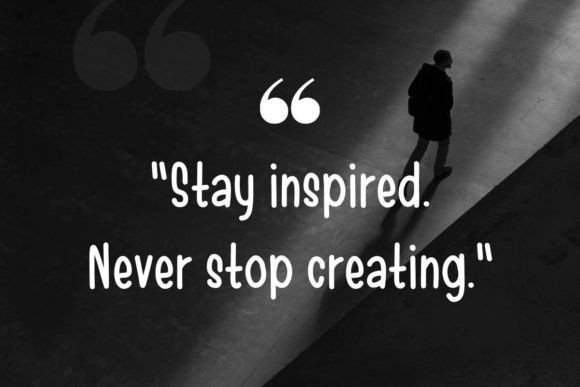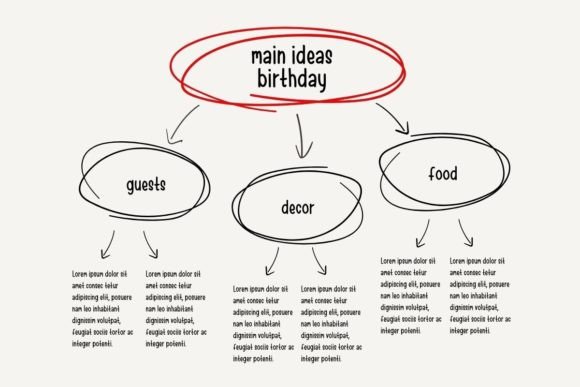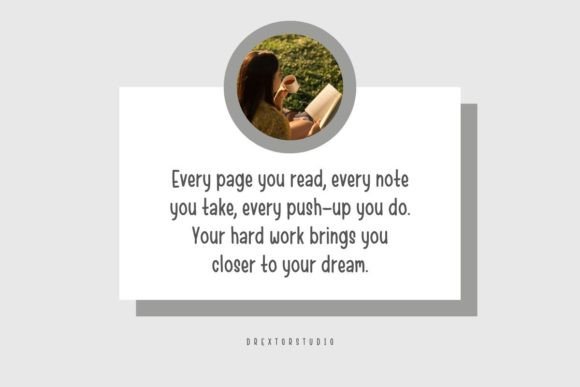
Introduction to Notes Partner Font
Notes Partner Font is a simple, neat handwritten font, perfect for digital note-taking.
Its versatility makes it ideal for various projects such as Procreate designs, blog posts, logos, branding, digital planners, invitations, greeting cards, photo albums, and much more .
Key Features of Notes Partner Font
Why Choose Notes Partner Font?
Notes Partner Font offers exceptional quality and versatility, making it a valuable addition to your design toolkit. Whether you’re creating for personal projects or commercial use, Notes Partner Font delivers professional results.